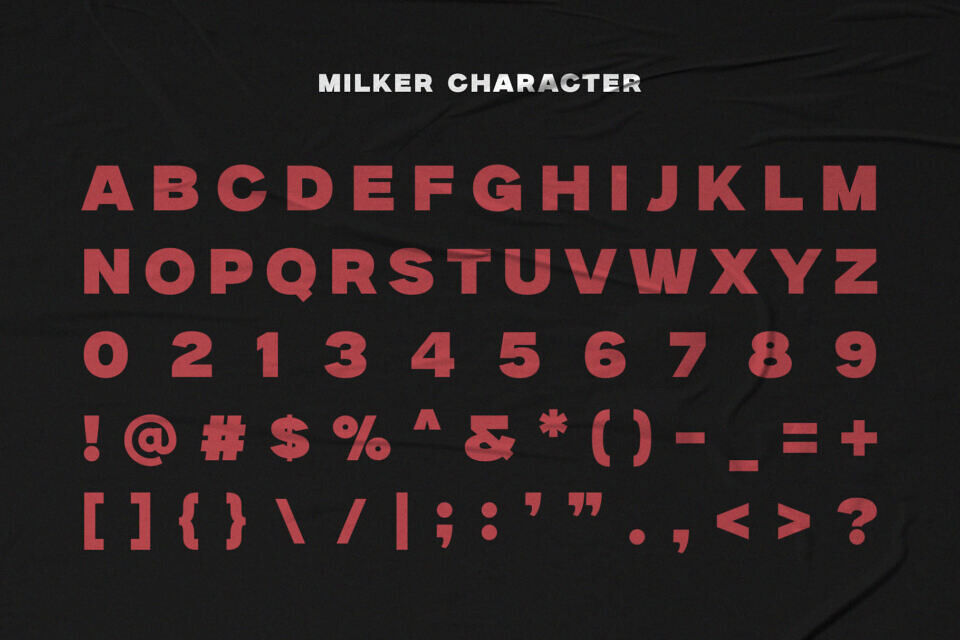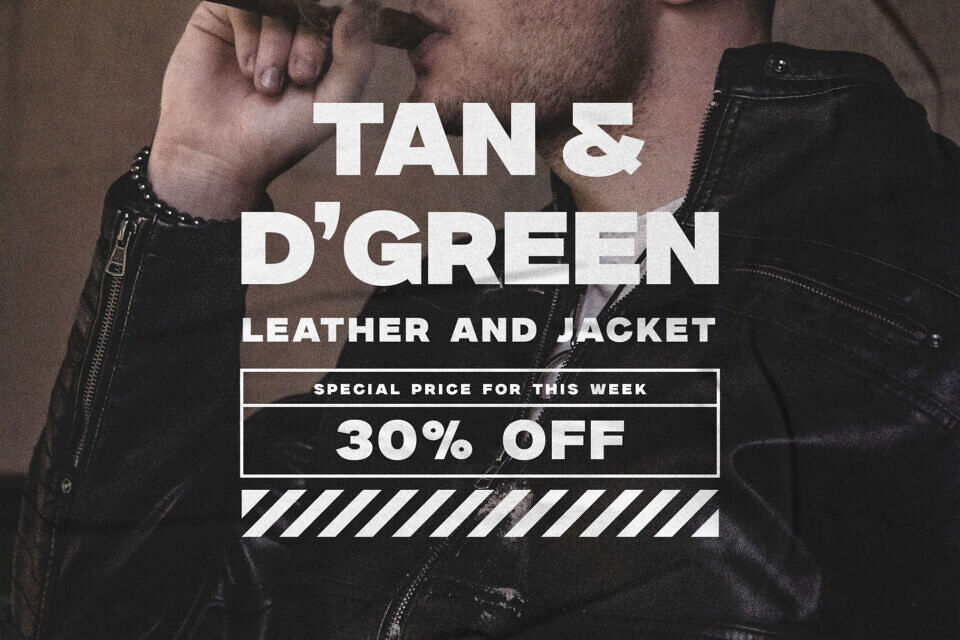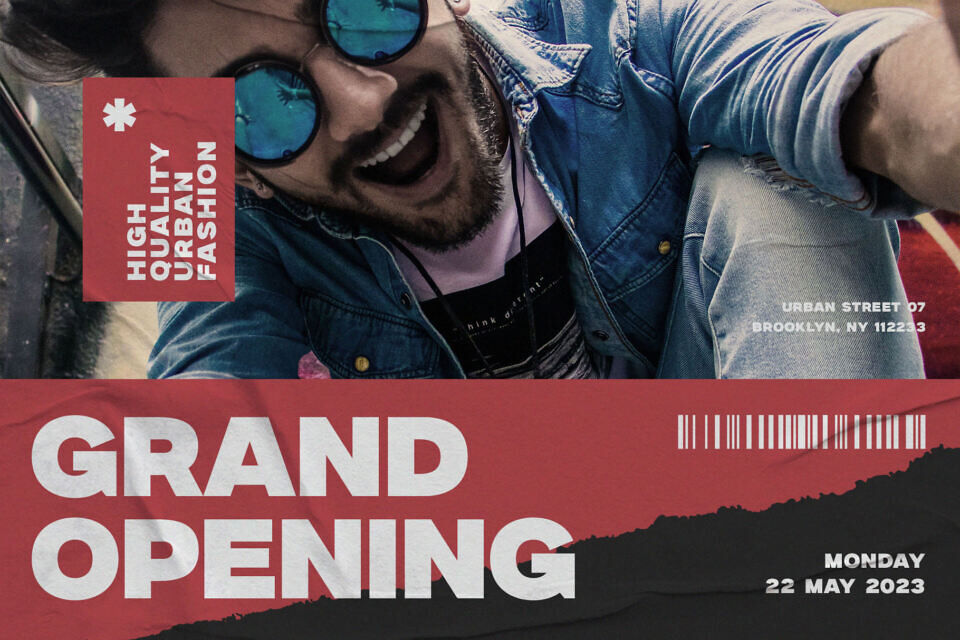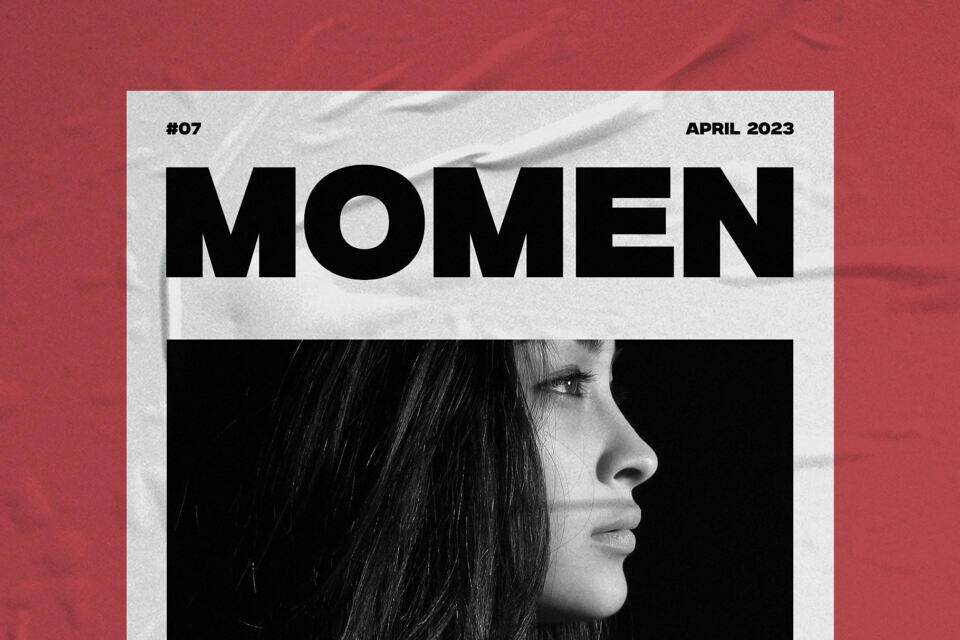
Milker Font
Introducing Milker Bold Sans Serif. Milker is a modern and bold font, best used as a display for headings, logos, branding, magazines, product packaging and invitations. Milker come with clean lines and smooth curves give any project an extra touch of class.